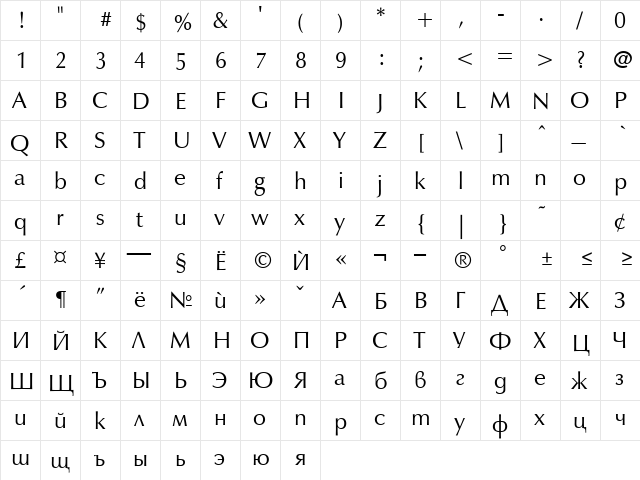
OpalB Normal
Design Context for OpalB Typeface
OpalB offers clean, dependable letterforms without strong stylistic allegiance, making it a practical choice for designers who need flexibility.
Pro Tip: Pair OpalB with a font of contrasting weight or personality to build a more expressive typographic hierarchy.